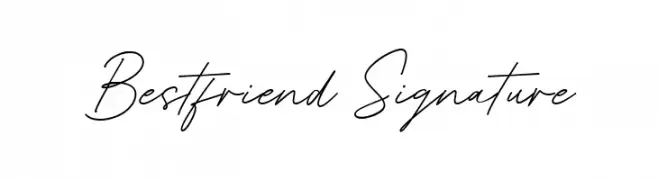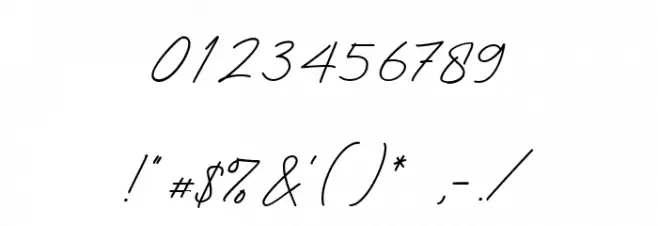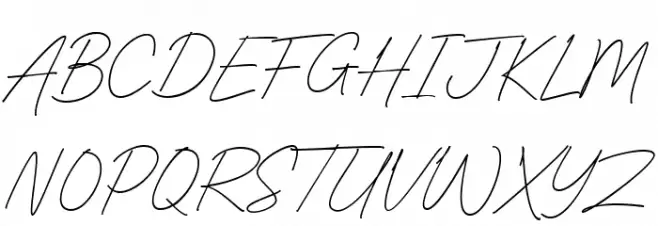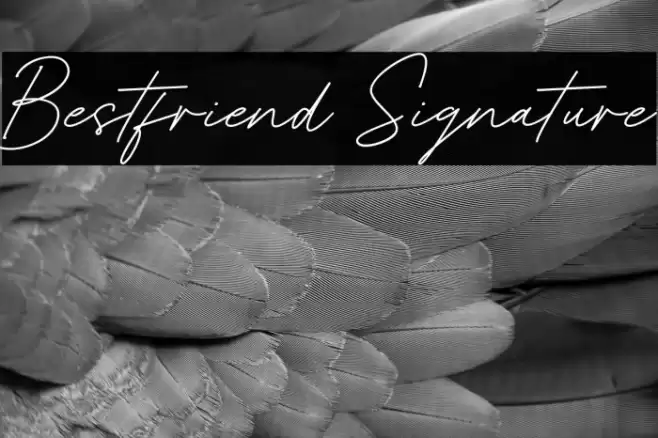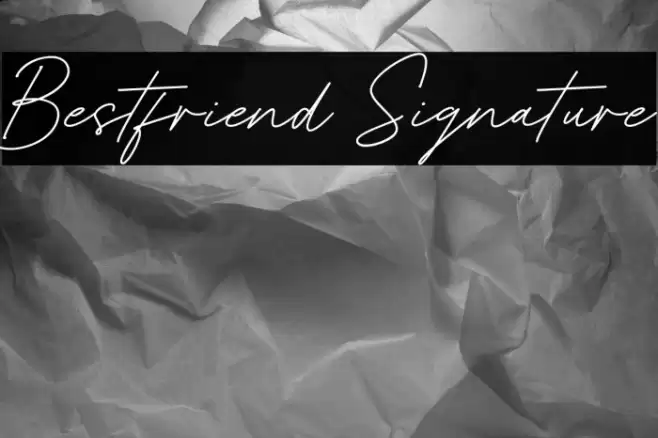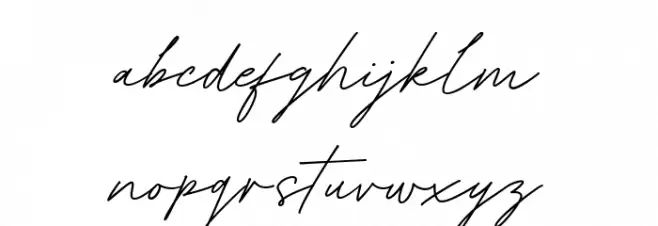
Bestfriend Signature Font
Bestfriend Signature Description
A delicate, cursive script font with a handwritten, elegant style characterized by thin, flowing lines and a slightly slanted appearance.
| Overall Style | Elegant, Modern, Handwritten |
| Use Case | Headlines, Personal stationery, Quotes, Branding |